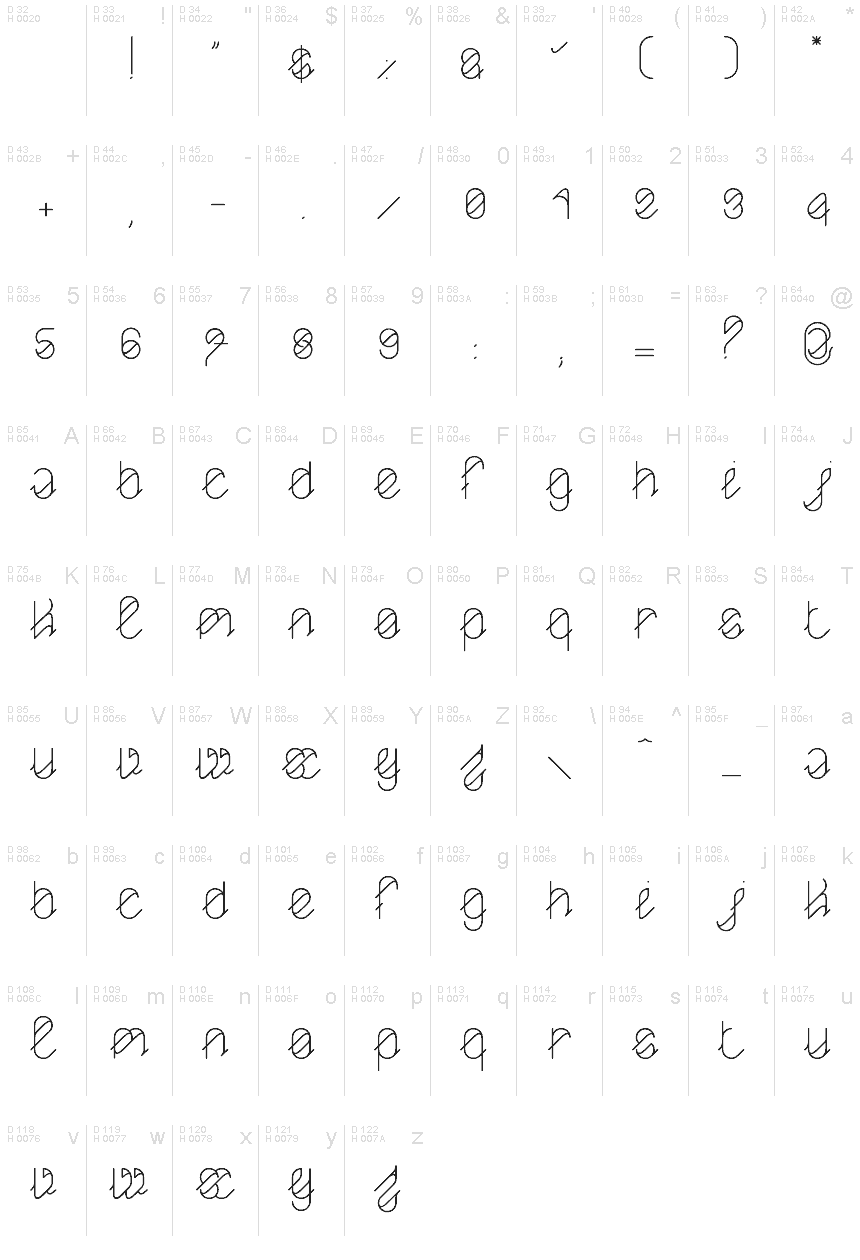
Tropicalist One
Tropicalist One font by Gérald Dejean is an elegant, flowing font that has a continuous and sophisticated touch. This light modern free display font carries a handwritten feel, which shows in the non-straight lines across the letters. It is well-balanced to meet both handwriting and display purposes.